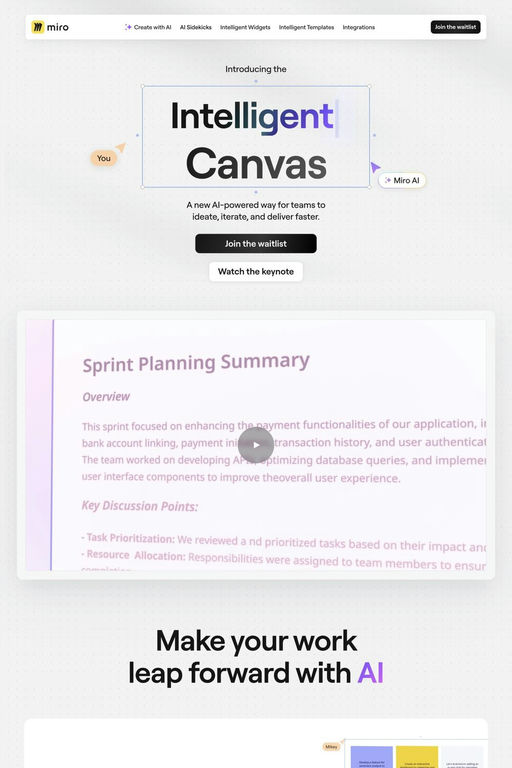
Roobert is a sans-serif typeface from Displaay Type Foundry.
Roobert is a mono-linear, geometrically-based sans-serif typeface. The terminals are horizontal or vertical and the connections on the stems are fluent. The typeface was initially designed as a bespoke typeface for Moogfest 2017. The basic concept is inspired by the Moog logotype, which features a distinctive single-story “g” with a rounded corner at the bottom and a simplified ending. You can see the specific detail of a “bent pipe” in the comma, and it is innovatively integrated throughout the entire typeface.